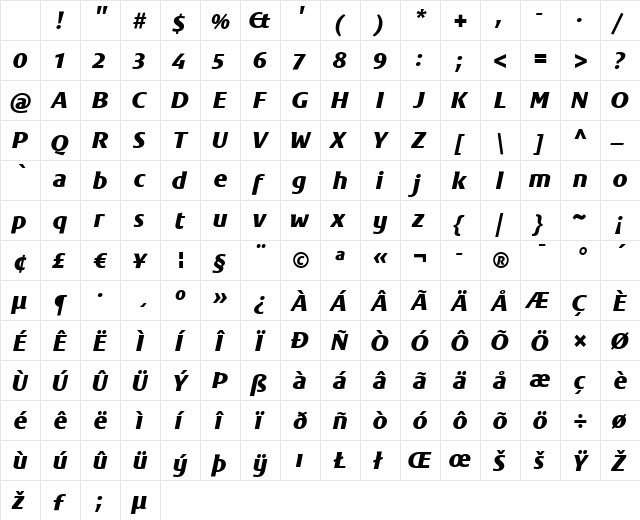
Sitaline is a composed and adaptable typeface that performs quietly and consistently across a wide range of design contexts. The slanted form adds forward momentum and visual energy. Its bold stroke weight gives it real presence on the page.
Pro Tip: Use Sitaline for emphasis, pull quotes, and subheadings where its slanted energy can add rhythm to the layout.